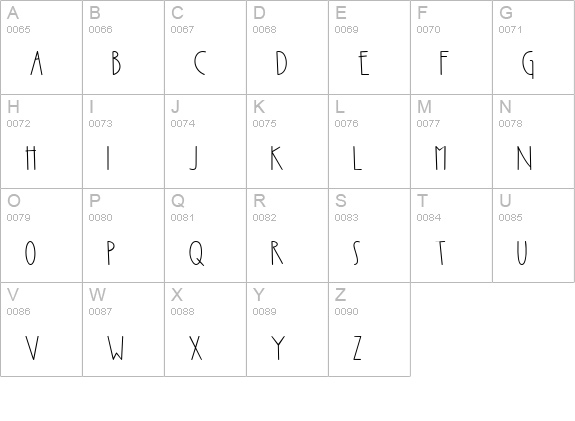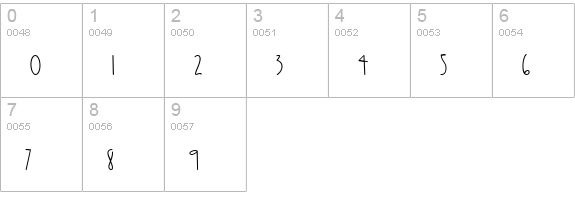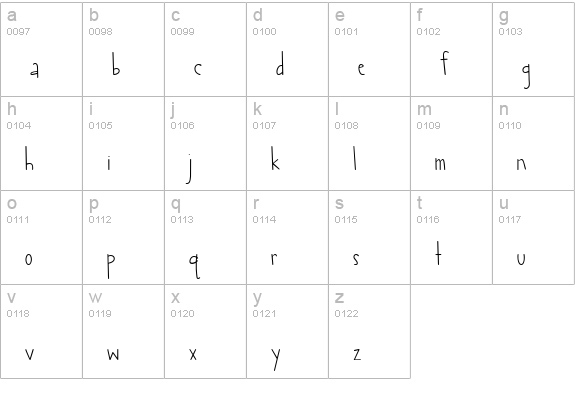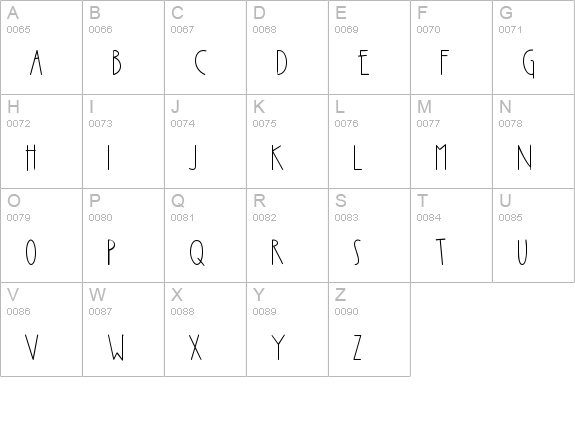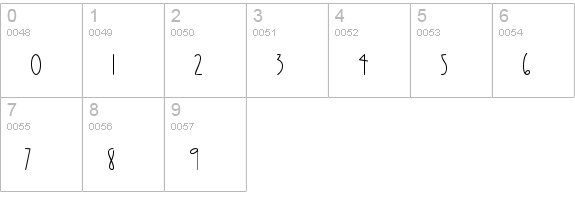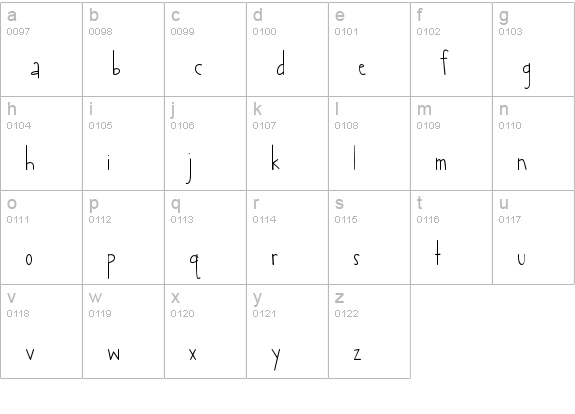
Introducing CK Twiggy font, a charming and whimsical typeface that is perfect for adding a touch of playfulness to your designs. With its unique twig-like strokes and elegant curves, CK Twiggy exudes a sense of organic beauty and creativity. This versatile font is ideal for a wide range of projects, from branding and packaging to invitations and social media graphics. What's even better is that CK Twiggy is available for free download at FontsMarket.com. So go ahead and unleash your creativity with this delightful font that will surely make your designs stand out!